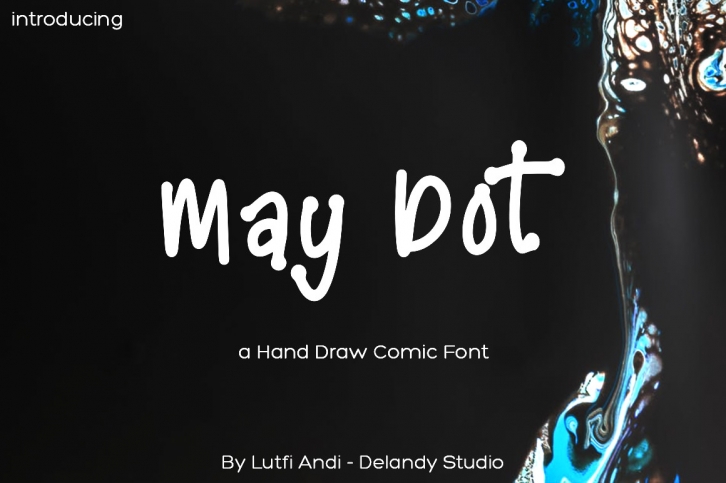
May Dot is a quirky and neat handwritten font. It is the best choice for creating eye catching logos, branding and quotes. Every letter has a unique and beautiful touch, which will make your design come alive!